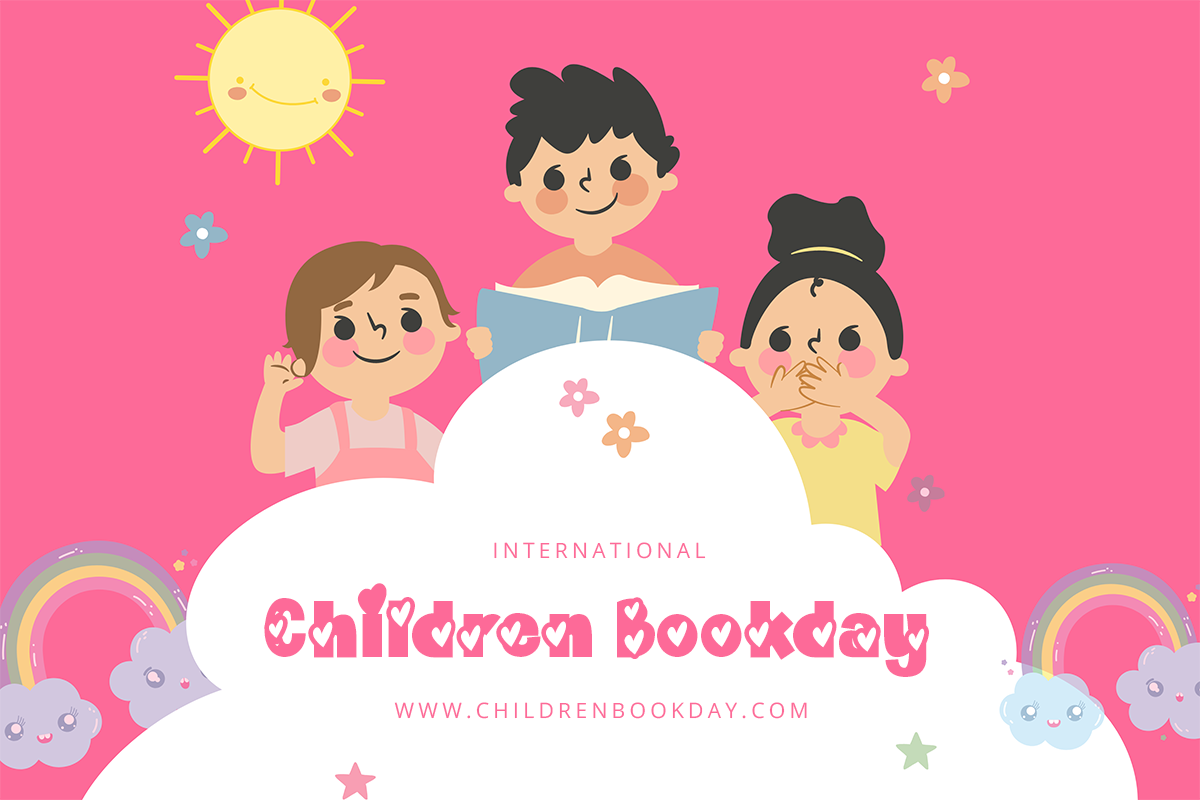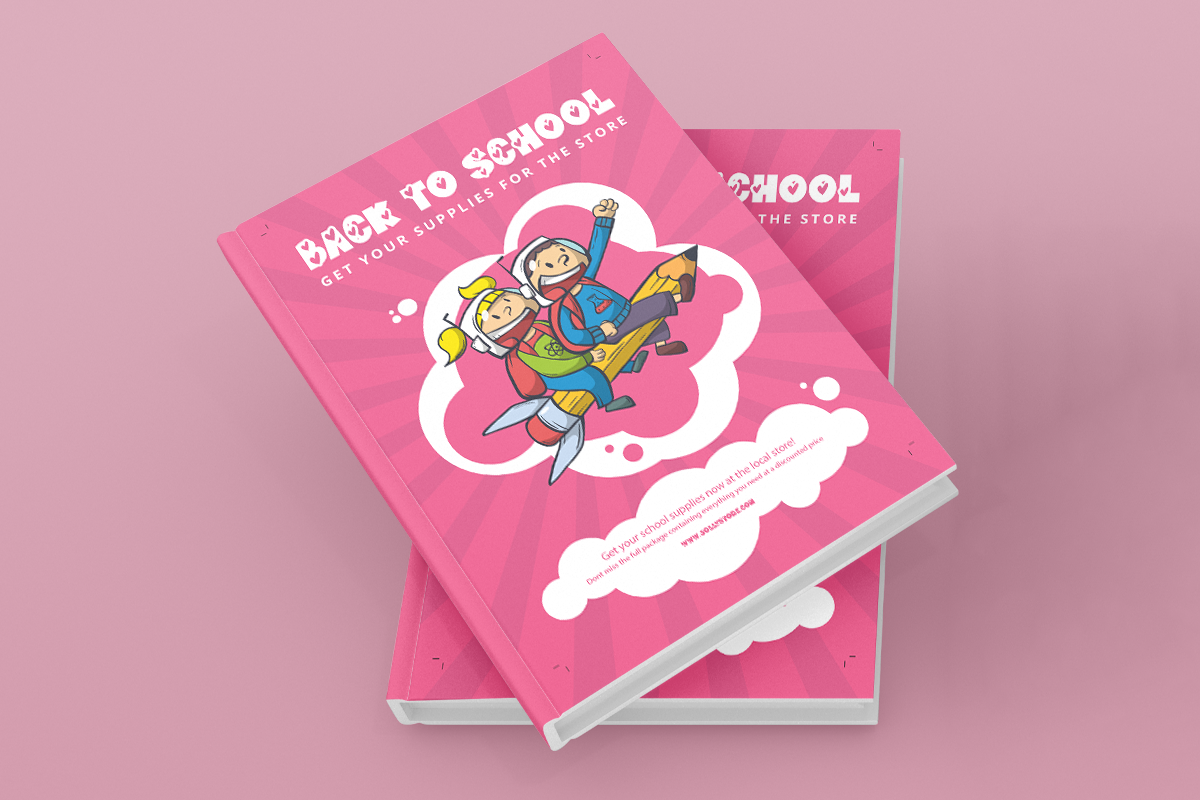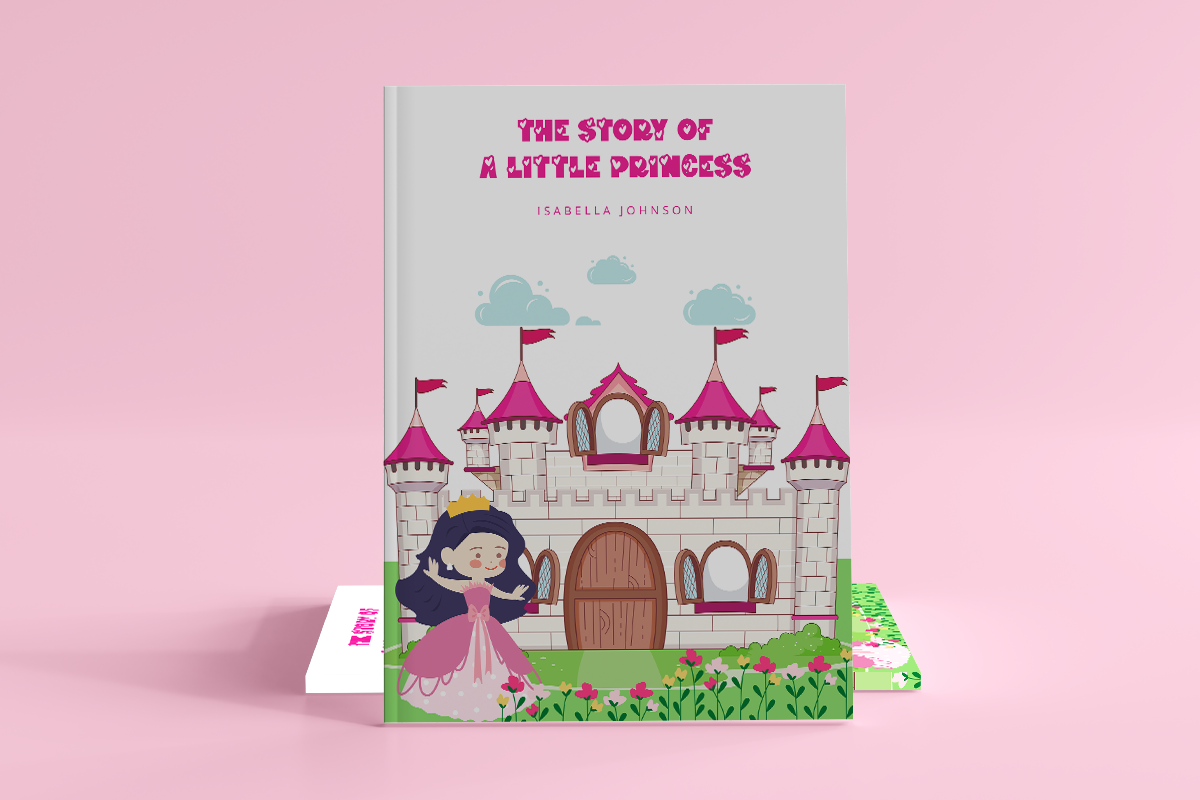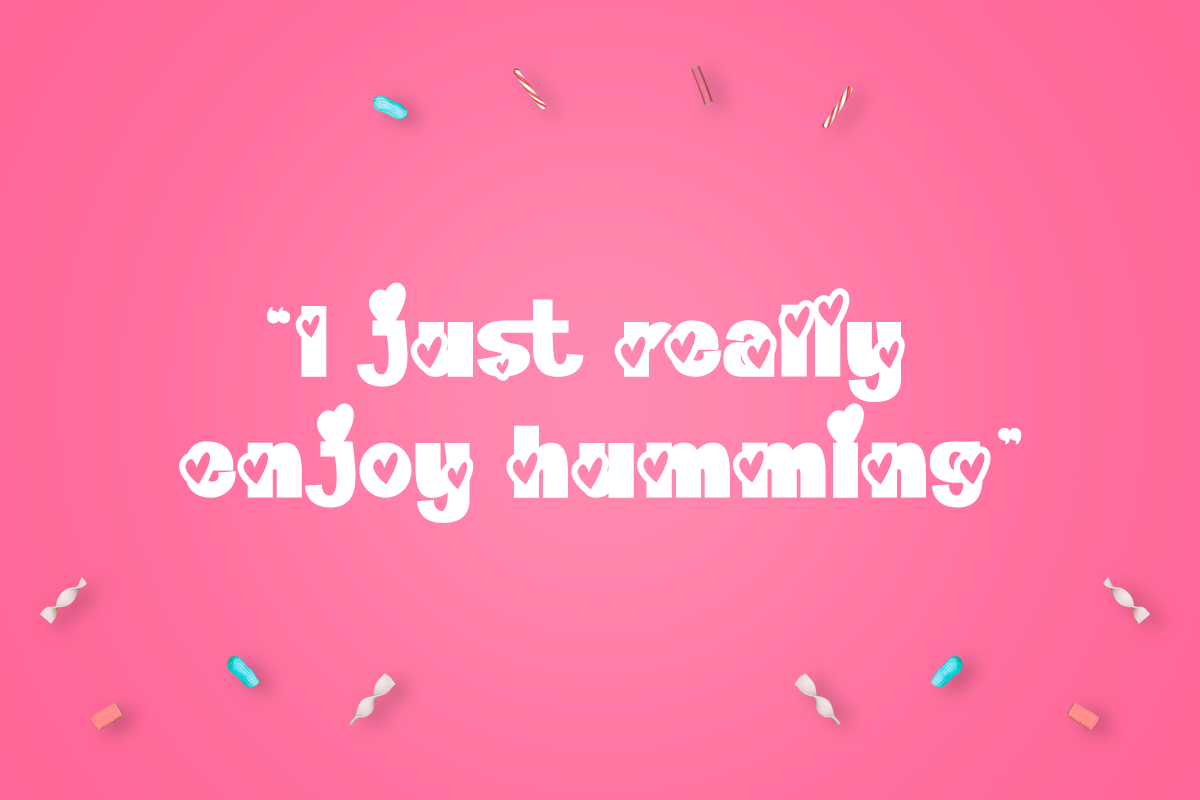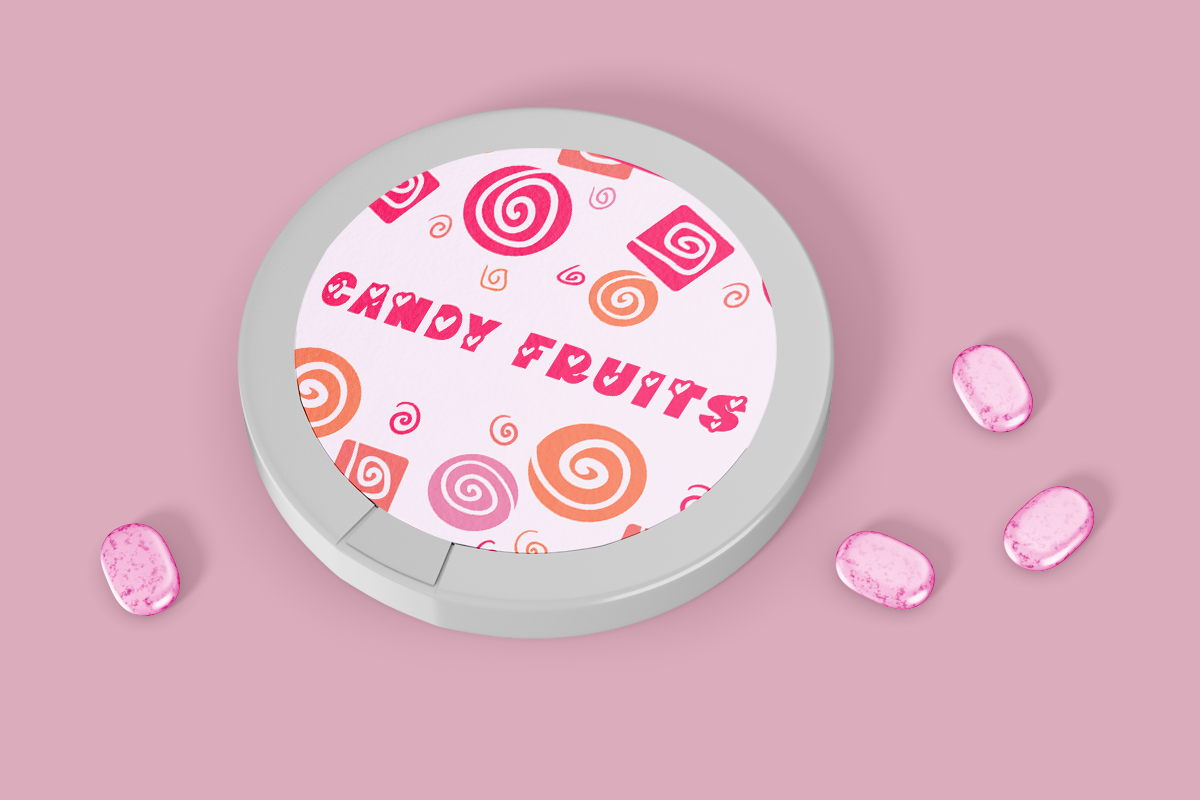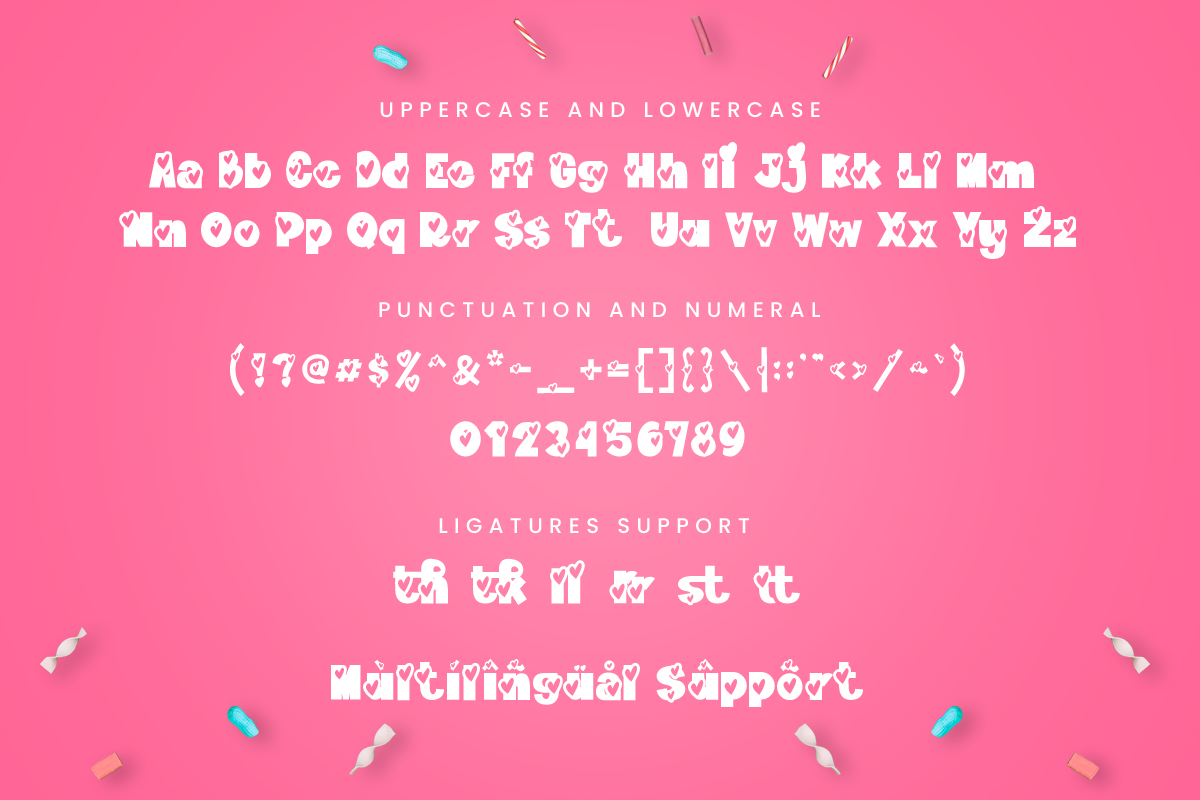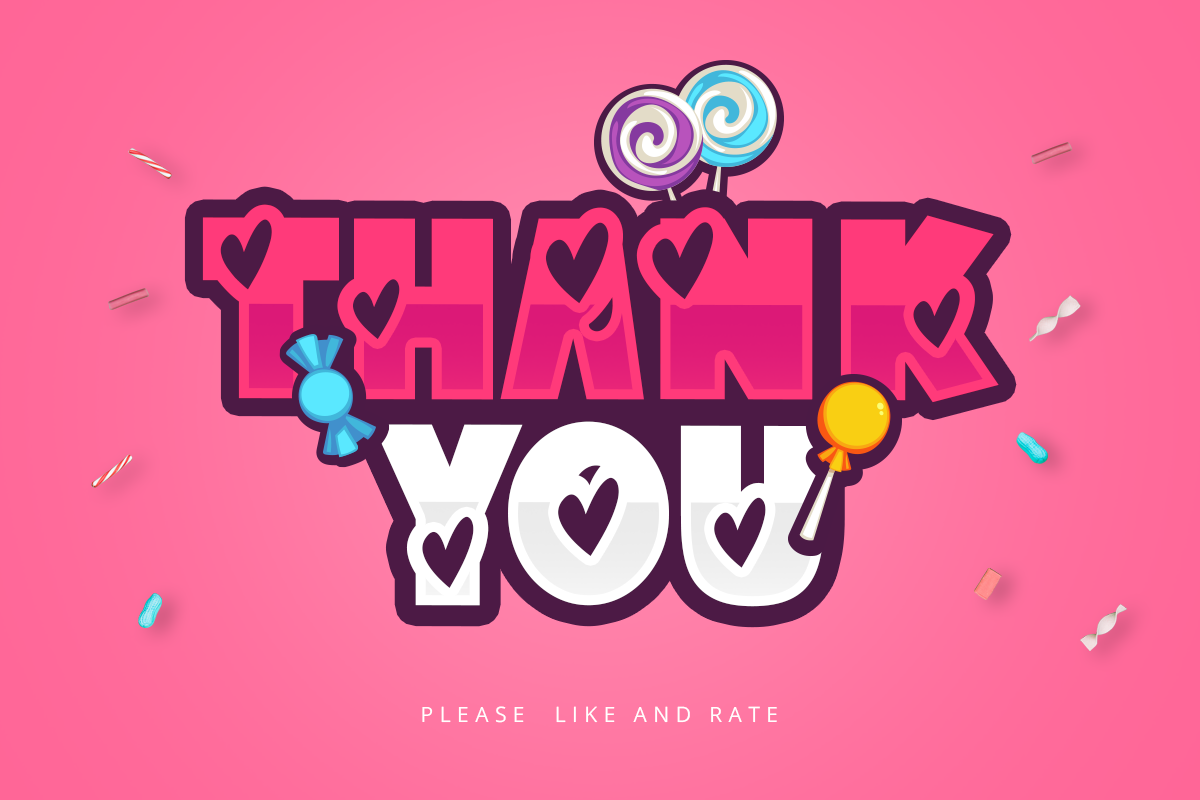
Candylove Cute Decorative Font Please welcome Candylove Cute Decorative Font, our fun and decorative) font designed for children's logos and fonts. Created with a cute, unique, and attractive shape, Candylove cute decorative font is our light font design that embodies the lovely character in kids. These fonts are made to work well digitally and in print later. This typeface has several unique characteristics we can see carefully how there is an additional love shape inside each letter. This unique design language makes the typeface stand out cute and playful, and this font is very suitable to be placed in equipment designs for children, such as school supplies and birthday party decorations. Accuracy in children's kits is inseparable from its legible characteristics when used in the right font size. Any brand with children as its target market can use the typeface on its packaging. They can use the Candylove font on their brand name or merchandise. Font size can be modified according to the items included. In addition to the uses mentioned above, you can use Candylove font for children's picture book covers, study book covers, and children's magazines. The cute design will also catch the eye of kids at school when you need to make a decoration wall or study event, to create a fun learning atmosphere for students. If one of your students is having a birthday party in class, you must choose this font for a more cheerful and colorful look. Our decorative fonts collection is compatible with Figma fonts, Canva fonts, Freepik Fonts, and Adobe Fonts. They also work as Windows Fonts, and Apple Fonts. For your social media needs, you can use and install fonts in our collection of Decorative fonts to use as Instagram Fonts, Facebook Fonts, and Twitter Fonts.